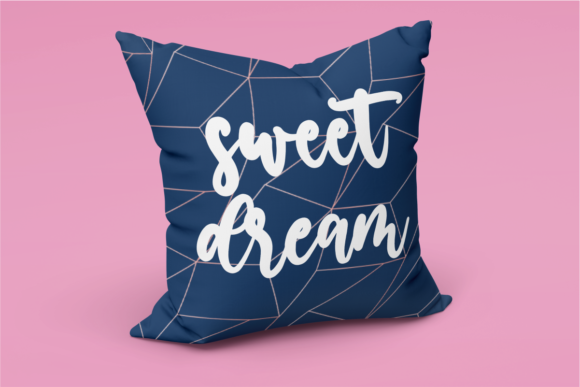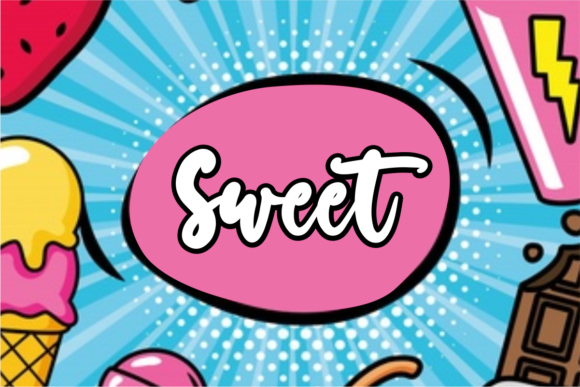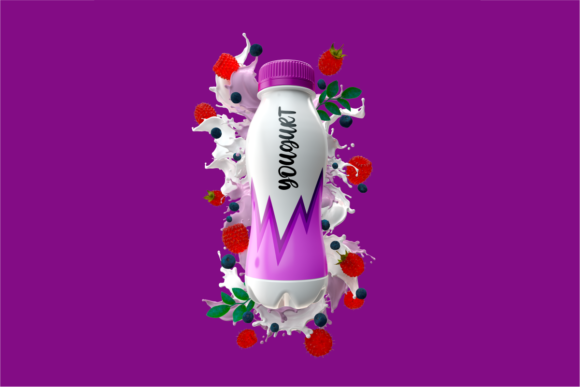
Candy Crush Font: The Sweetest Addition to Your Design Arsenal
Have you ever been in the midst of a creative project, staring blankly at your screen, and then suddenly, the perfect font pops into your head? It’s like a burst of inspiration, a spark that ignites the entire design process. For many of us, this moment is a defining characteristic of a truly great font. And, for designers looking to add a touch of whimsy and fun to their work, the Candy Crush Font is sure to be the answer to their prayers.
This modern and playful display font is designed to bring your creative ideas to life. Perfect for a wide range of applications, from logo design and branding to social media posts and product packaging, the Candy Crush Font is a valuable addition to any designer’s toolkit. With its masterful design, this font is sure to become a true favorite among designers looking to add a touch of personality to their work.
Candy Crush Font Key Features
- Font Family: The Candy Crush Font is a custom-designed font, making it a unique and exclusive typeface.
- Unique Characteristics: The Candy Crush Font features a distinctive, hand-drawn style with rounded edges and vibrant colors, making it perfect for creating playful and eye-catching designs.
Candy Crush Font Review
I have to say, the Candy Crush Font is quite a unique and eye-catching font. It ✨ stands out from the crowd with its playful and colorful design. The font’s use of bold lines and rounded shapes gives it a fun and whimsical feel that’s perfect for casual or entertainment-based projects.
Here are some of the things that work well with the Candy Crush Font:
- Its bold and colorful design makes it perfect for creating attention-grabbing headlines or titles.
- The font’s rounded shapes and soft edges make it easy on the eyes and comfortable to read.
- It’s a great choice for projects that require a fun and lighthearted tone, such as video games, cartoons, or children’s books.
- The font may be too playful or childish for more serious or formal projects.
- Its bold design can be overwhelming if used in large quantities, so be sure to balance it with other fonts and design elements.
- The font’s color palette is limited to bright and bold colors, which may not be suitable for projects that require more subdued or muted tones.
Overall, the Candy Crush Font is a fun and playful choice for projects that require a lighthearted and attention-grabbing design. While it may not be suitable for all types of projects, it’s definitely worth considering for projects that need a fun and whimsical touch.
The Candy Crush Font is ideal for:
- Candy-themed designs and packaging.
- Fun and playful social media graphics.
Tips for Getting the Most Out of the Candy Crush Font
Use the Candy Crush Font in combination with other playful graphics and textures to add depth and interest to your design.
Consider using the Candy Crush Font in a creative way, such as using it as a background or